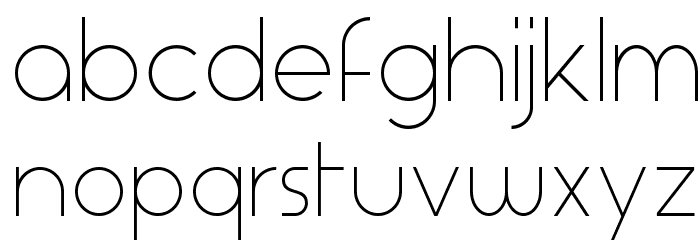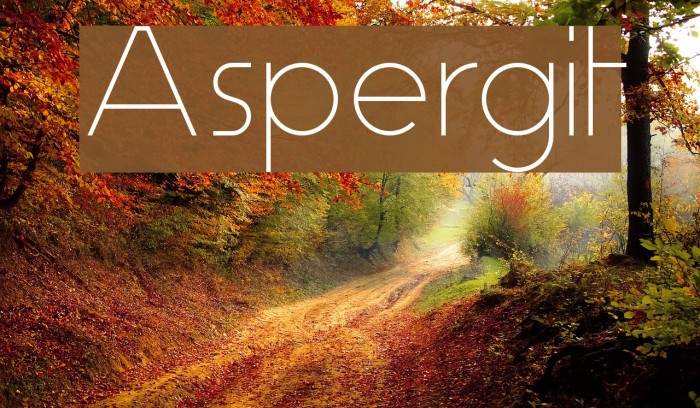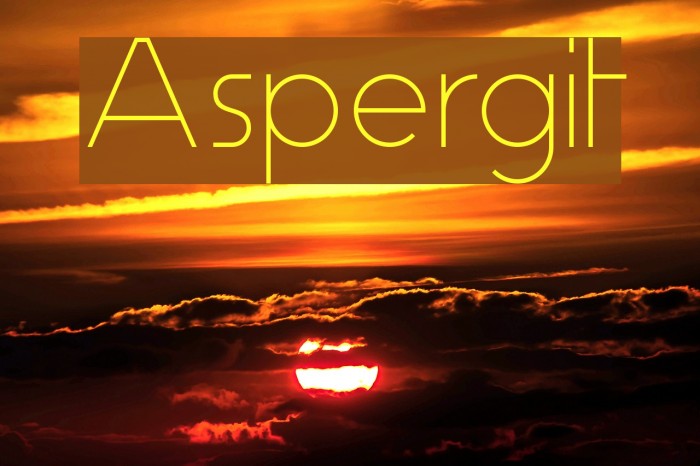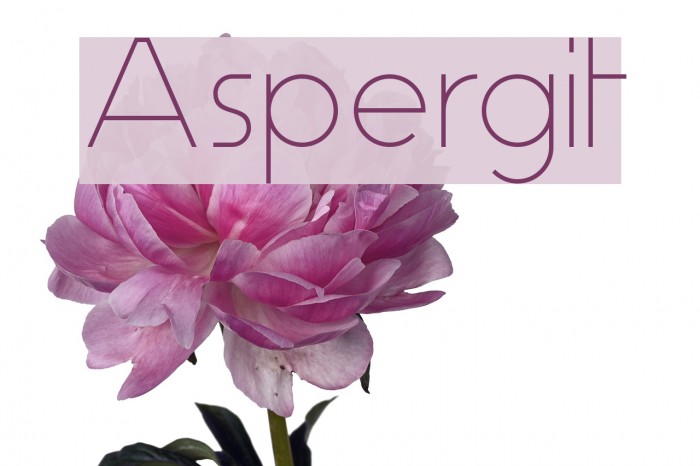
Aspergit Font
This font features a sleek and modern design with clean lines and a minimalist aesthetic. The characters are crafted with a geometric precision, offering a sense of balance and harmony. The uppercase letters are tall and elegant, while the lowercase letters maintain a consistent roundness, contributing to a cohesive look. The numerals are straightforward and align well with the overall style. Special characters are designed with the same attention to detail, ensuring they integrate seamlessly with the rest of the font. This typeface is ideal for projects that require a contemporary and sophisticated touch.
A sleek, modern font with geometric precision and minimalist design.
- Proposed Projects: Ideal for branding, editorial design, web design, and advertising campaigns.